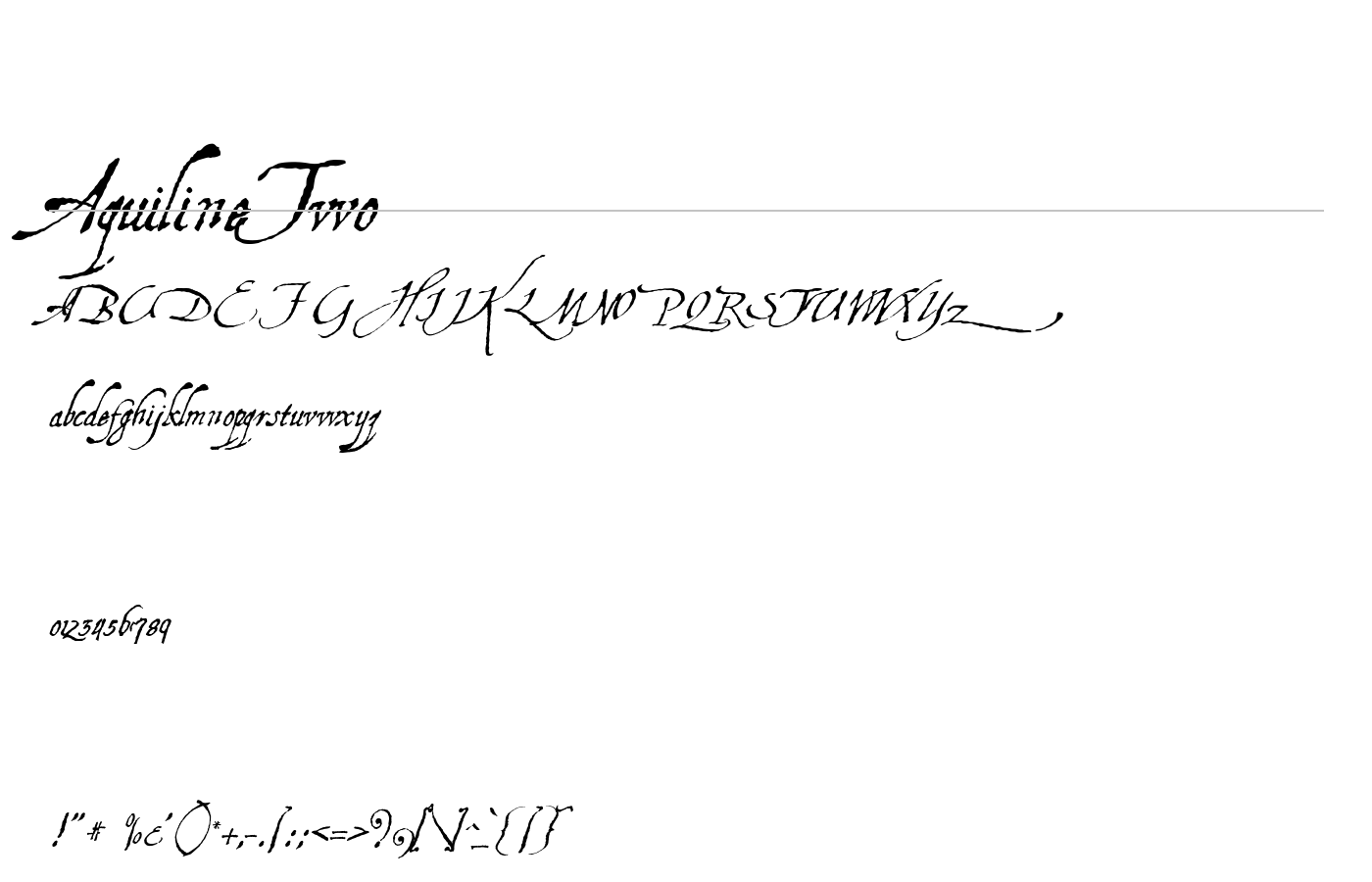
AquilineTwo is a delicate script font with elegant, flowing letterforms that evoke the feel of classic calligraphy. Its fine, slightly irregular strokes and graceful curves give it a sophisticated, artistic personality, making it ideal for invitations, certificates, and stylish branding where a touch of refined craftsmanship is desired. This font works best in decorative or display contexts where its unique charm can truly stand out.
AquilineTwo Font
About AquilineTwo Font